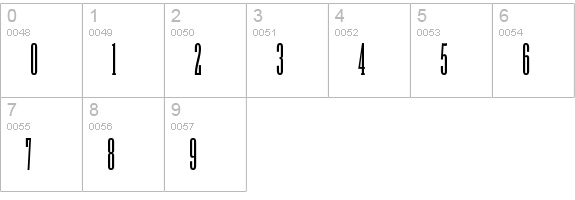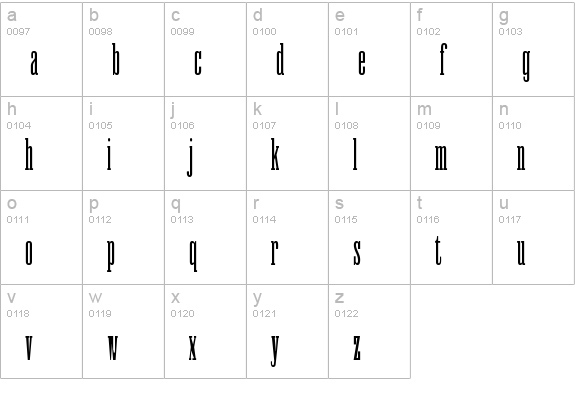
AntiqueCondensed-Two Font Details
AntiqueCondensed-Two is a classic and elegant serif font that exudes sophistication and timelessness. Its condensed style adds a touch of modernity while still maintaining a vintage charm. Perfect for creating eye-catching headlines, logos, and branding materials, this font is versatile and adaptable to a variety of design projects. Best of all, AntiqueCondensed-Two is available for free download at FontsMarket.com. Whether you're a professional designer looking to add a new font to your collection or a hobbyist seeking to elevate your creative projects, this font is a must-have. Don't miss out on the opportunity to enhance your designs with this exquisite typeface that combines tradition with a contemporary flair. Download AntiqueCondensed-Two today and let your creativity soar.